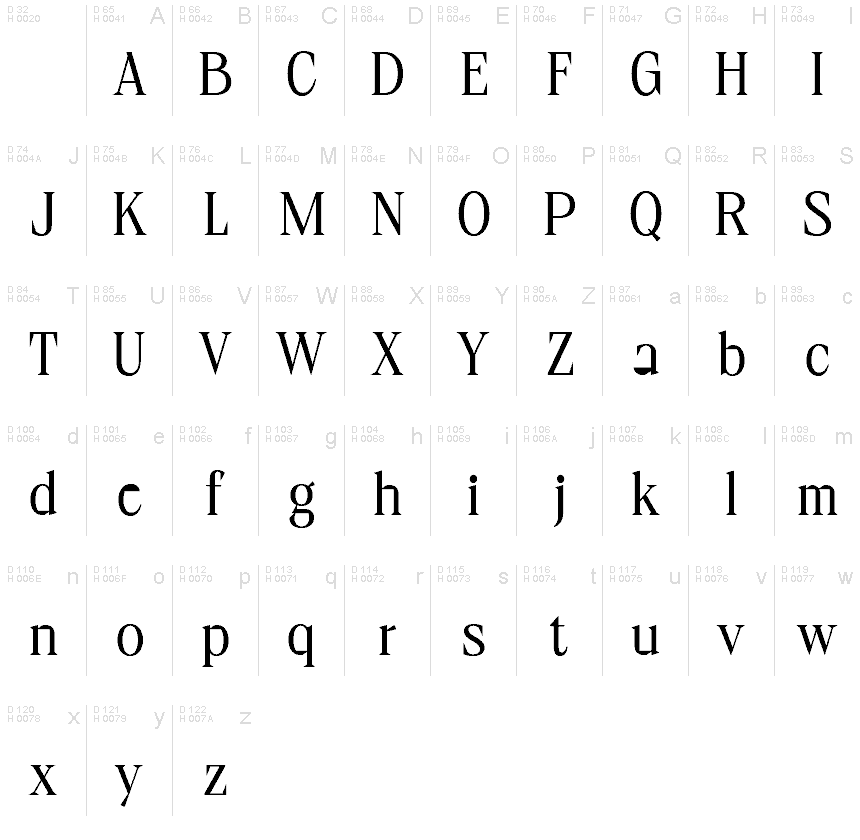
CS Brighten Regular Demo
CS Brighten font by Craft Supply Co. is a free serif font that showcases unique touches of elegance within its classic letters. Timeless and sophisticated, the typeface presents a special combination of modern style and slight vintage hints. Designed to make an impression and instantly elevate the quality of design, CS Brighten truly embodies class.
Use it for your wedding or magazine layout, cosmetics or skincare branding, invitation cards or product design. Logo design on print media as well as web will also benefit from this professional font’s stunning looks. Social media posts with matching covers can as well receive some special attention!